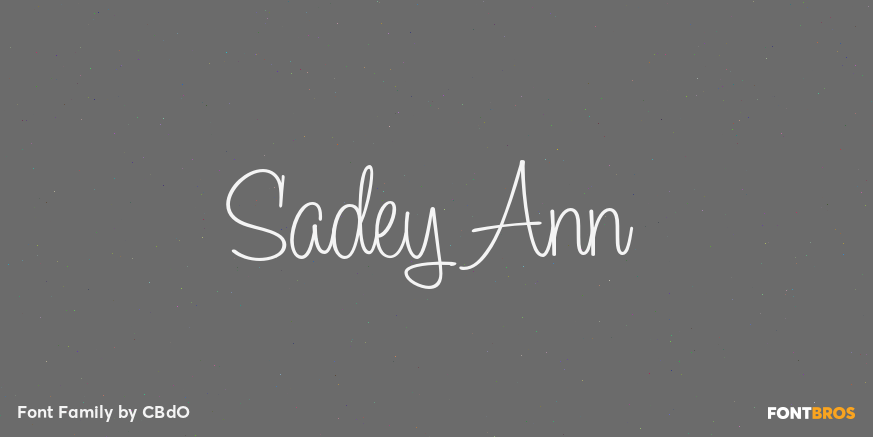
HomeFont BrosHandwrittenSadey Ann HandwrittenScripts: CasualScripts: FormalRetro (1936-1965)Wacky Sadey Ann FacebookXPinterestWhatsApp 1 of 1 About Sadey Ann A nice delicate script made for my little girl, Sadey. This penline script has 26 alternate characters.  DOWNLOAD ON FONT BROSThis font is sold and delivered by Font Bros. Font Canyon may earn a commission if you buy through this link. People also explored The House Font Sand & Castle Font De Jungle Garden Font Dalinya Font Christmas Glamour Font Guropic Font Varhalla Font Hopia Font Amigos Font 370 0 TagsSadey Ann Font Previous articleSirius BNext articleHexenhammer LEAVE A REPLY Cancel reply Comment: Please enter your comment! Name:* Please enter your name here Email:* You have entered an incorrect email address! Please enter your email address here Website: Save my name, email, and website in this browser for the next time I comment. Personal Use Free Doriath Personal Use Free Read more about this font Good Timing – Bold Personal Use Free Read more about this font Gila Personal Use Free Read more about this font Cuttering Personal Use Free Read more about this font BLOG Best Fonts for YouTube Videos: Make Your Thumbnails Stand Out Best Fonts for YouTube Videos: Make Your Thumbnails Stand Out Choosing the right font can make a massive difference in how your YouTube videos perform.... Exploring Font Trends Best Fonts for T-Shirt Design – Top 2025 Picks How to Install and Use Fonts on Windows, macOS, and Web Projects